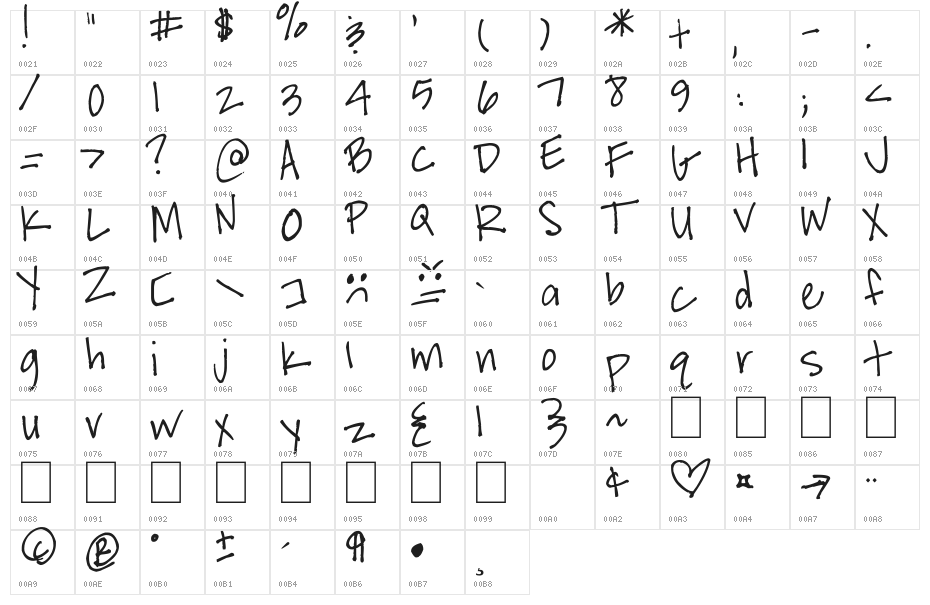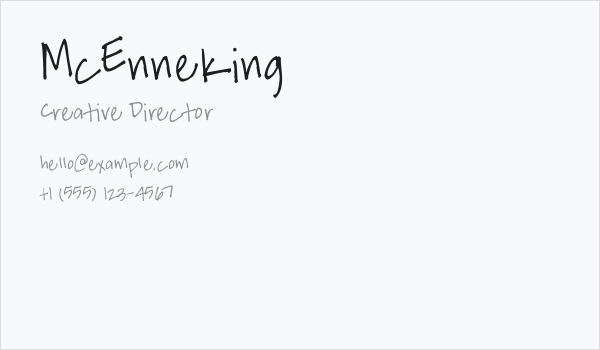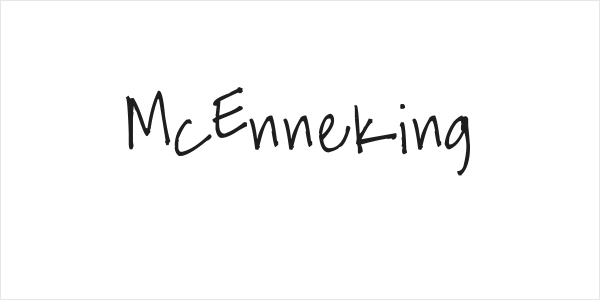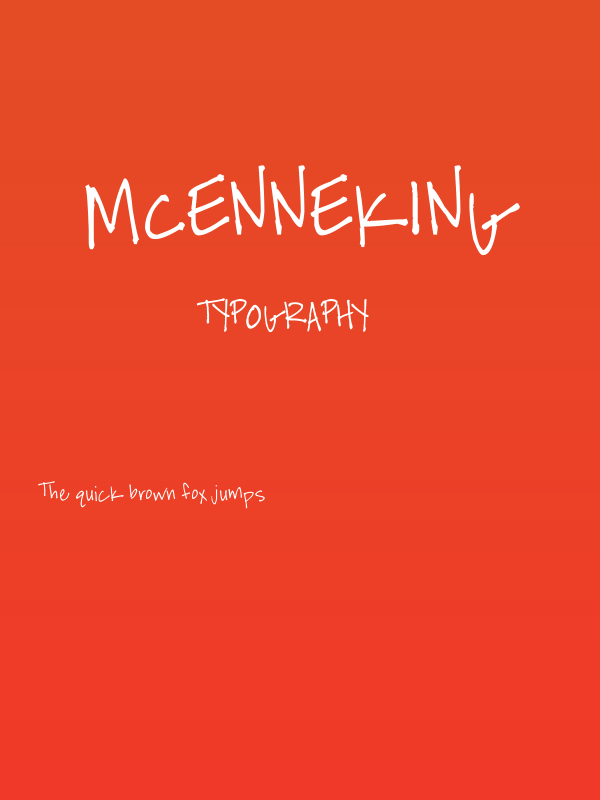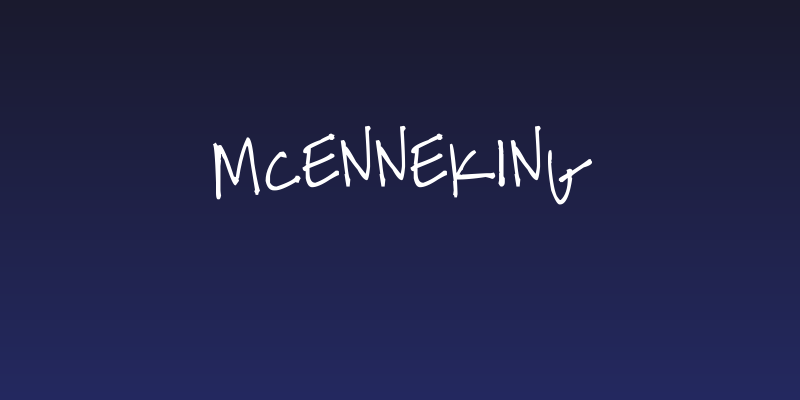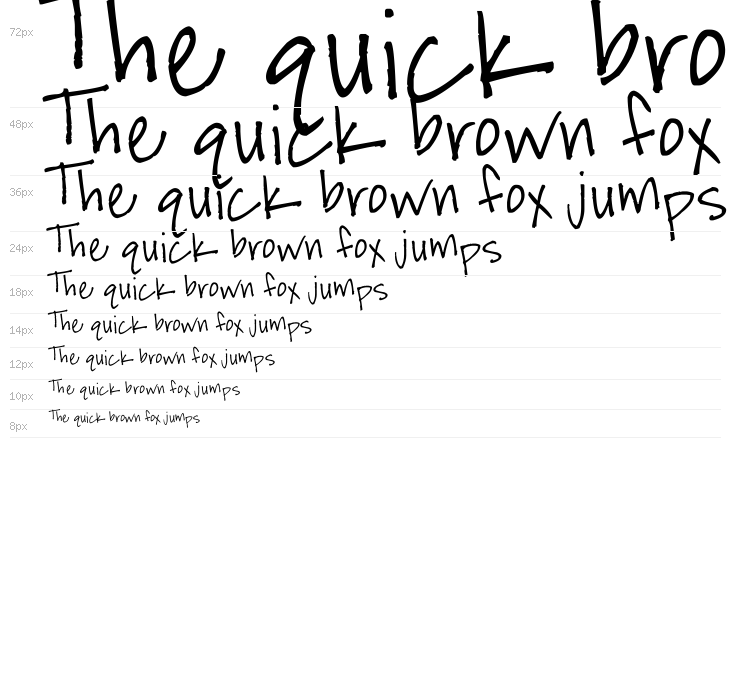
McEnneking Font
McEnneking Description
This font features a casual, handwritten style with a playful and informal appearance. The characters are slightly irregular, giving it a natural and authentic look, reminiscent of personal notes or doodles. The uppercase and lowercase letters maintain a consistent flow, while the numbers and special characters complement the overall style. The strokes are moderately thick, adding to the legibility and charm of the font. This typeface exudes a friendly and approachable vibe, making it suitable for creative and informal projects.
| Proposed Projects | Ideal for greeting cards, personal notes, informal invitations, and creative projects. |